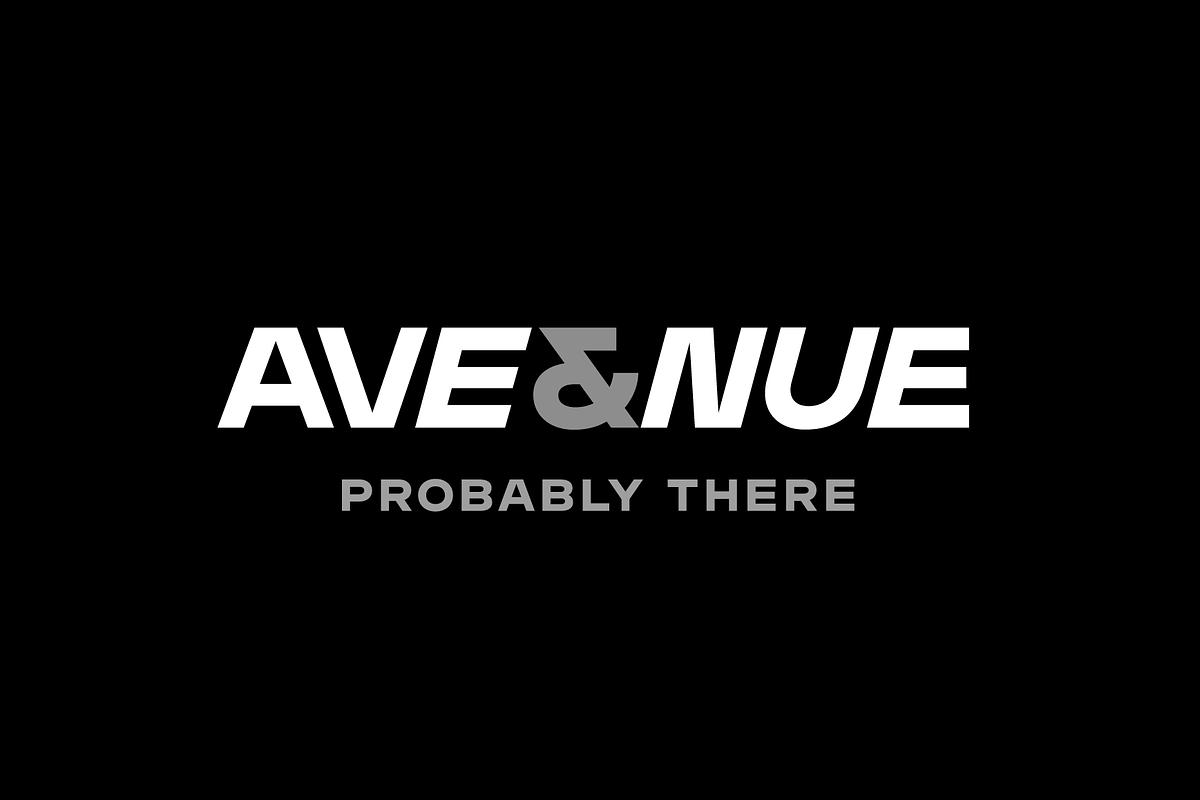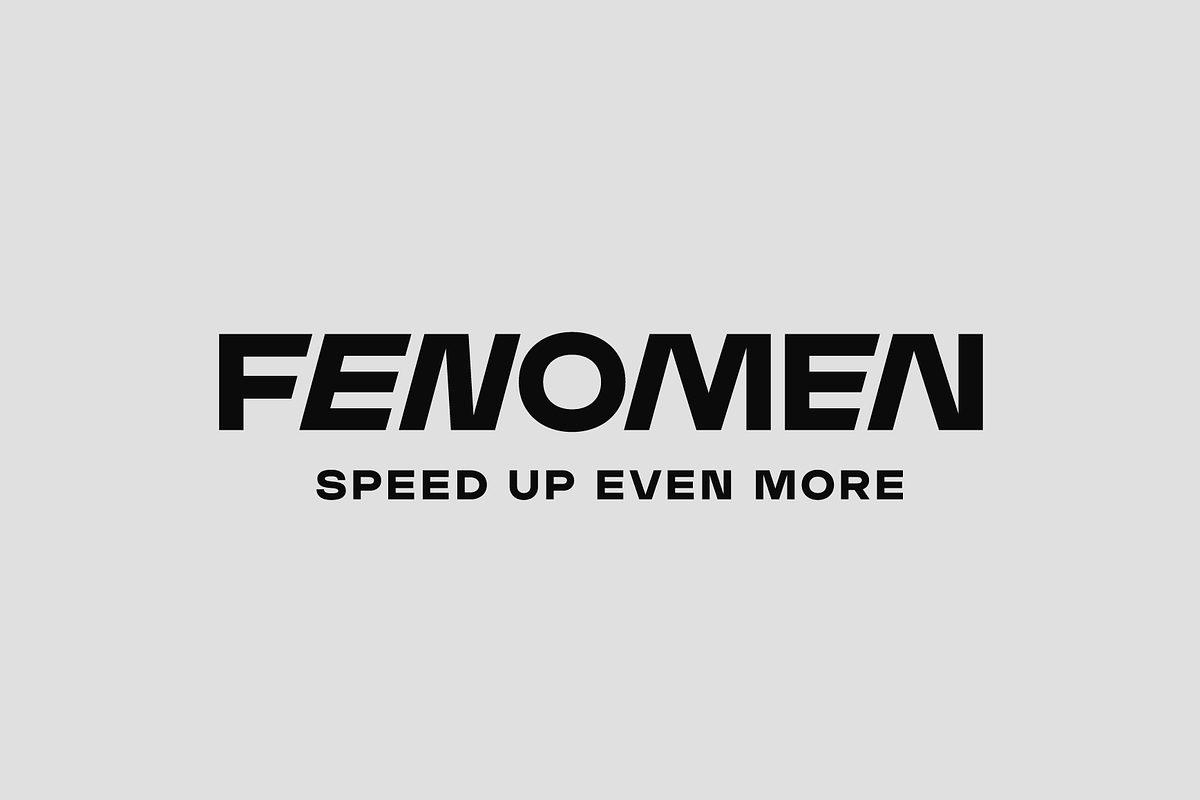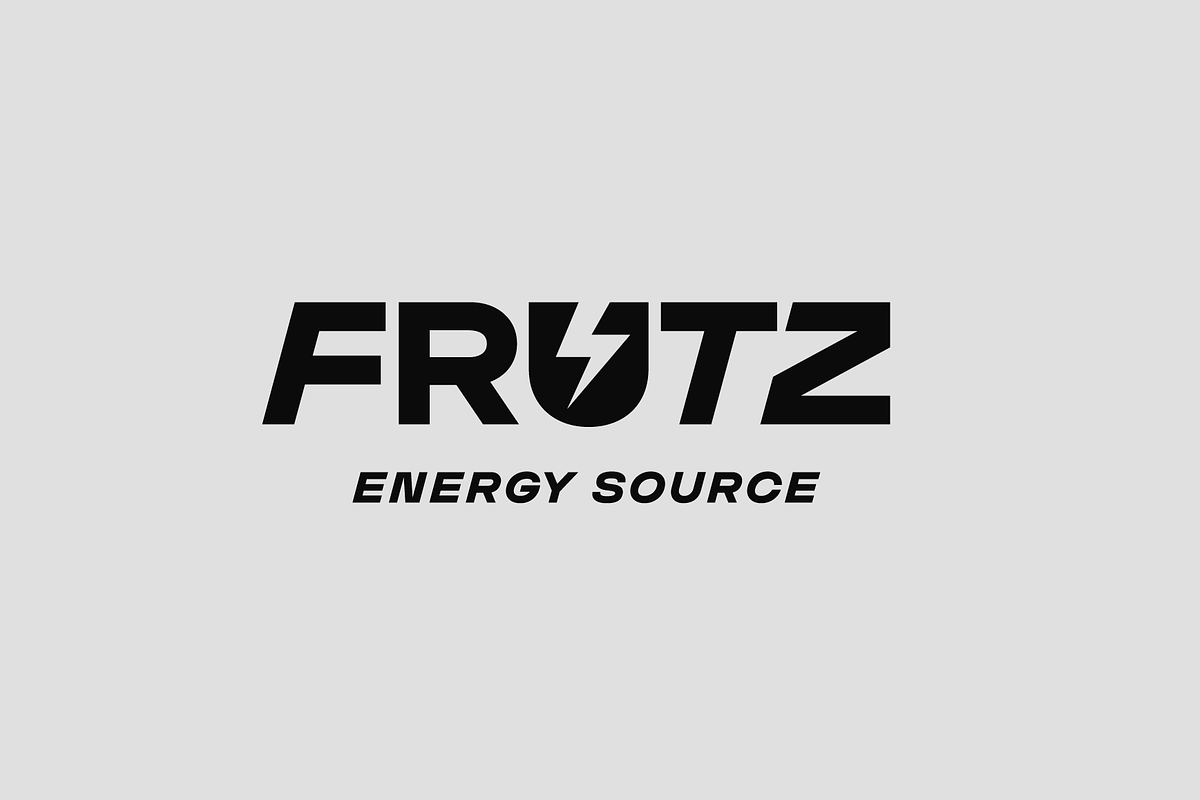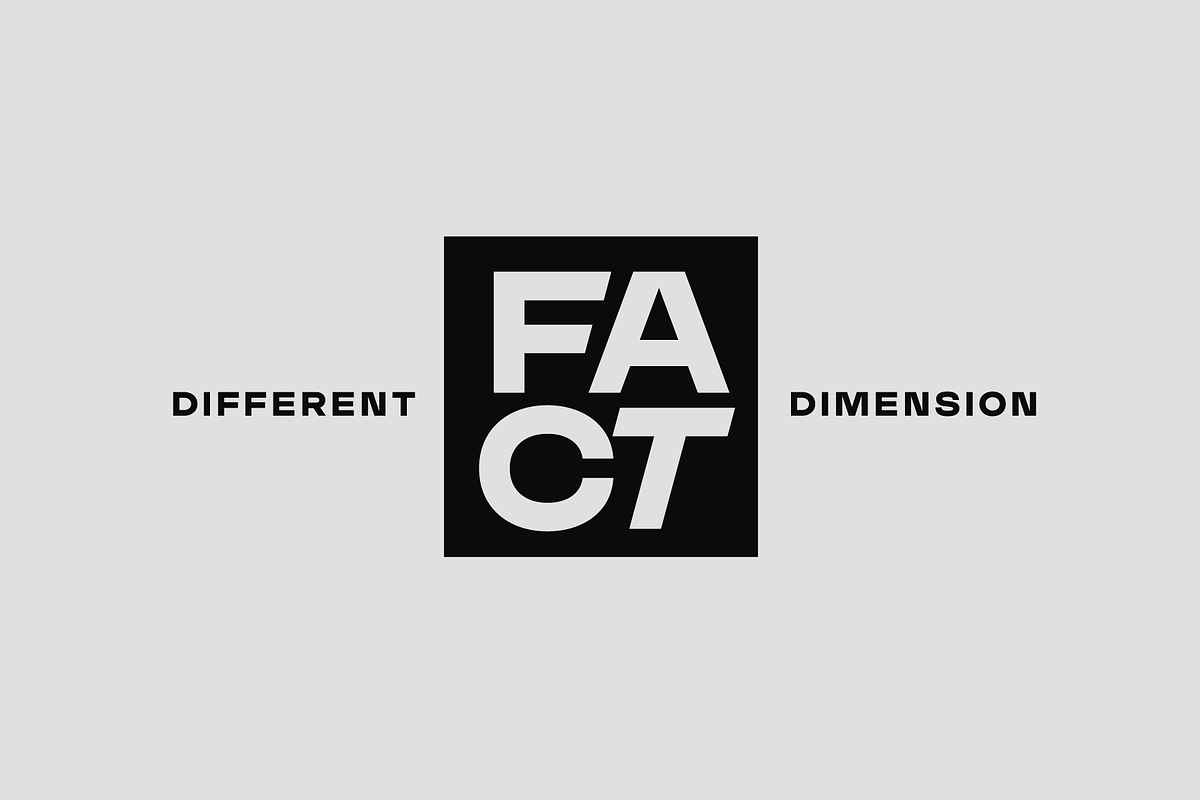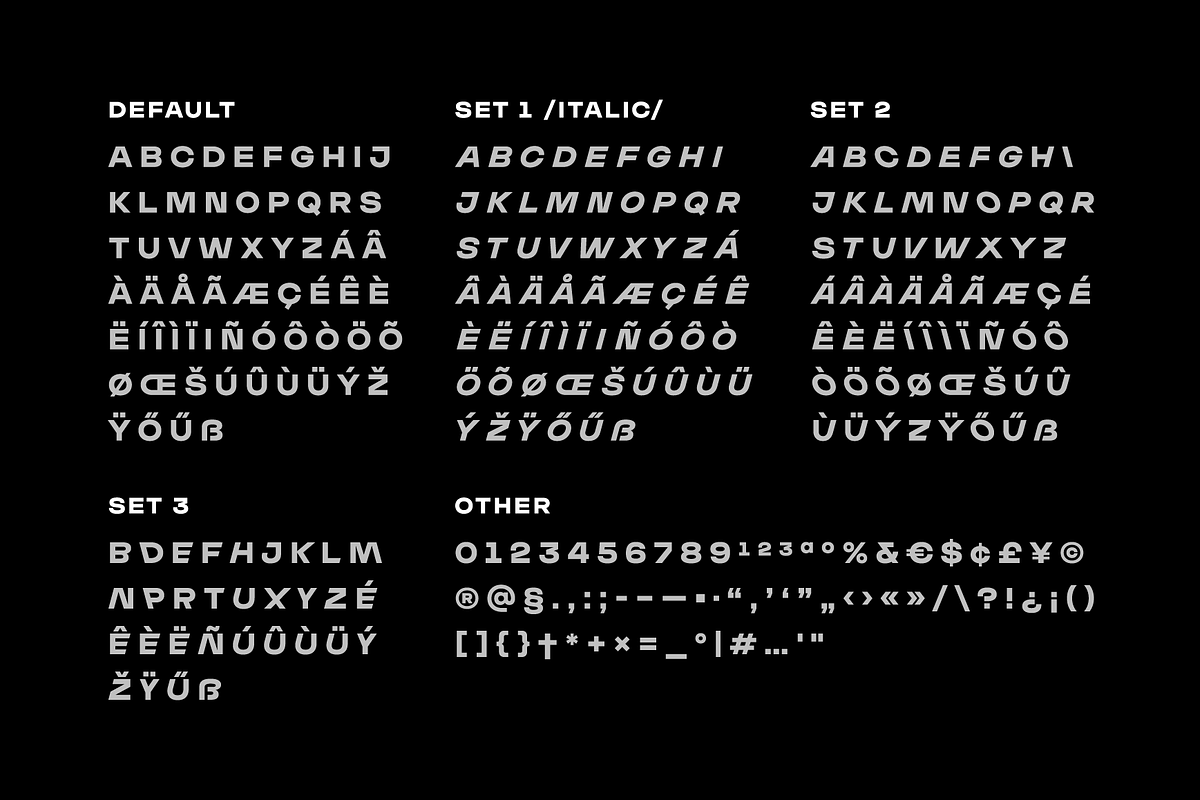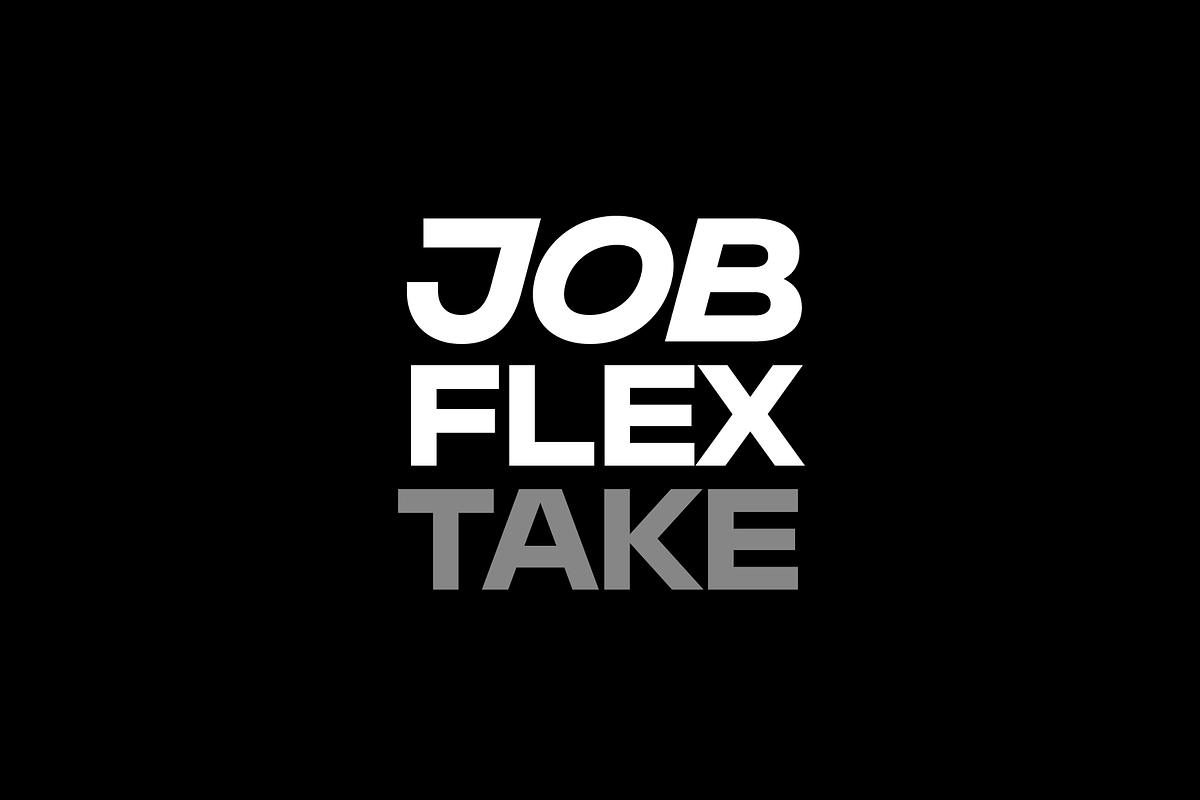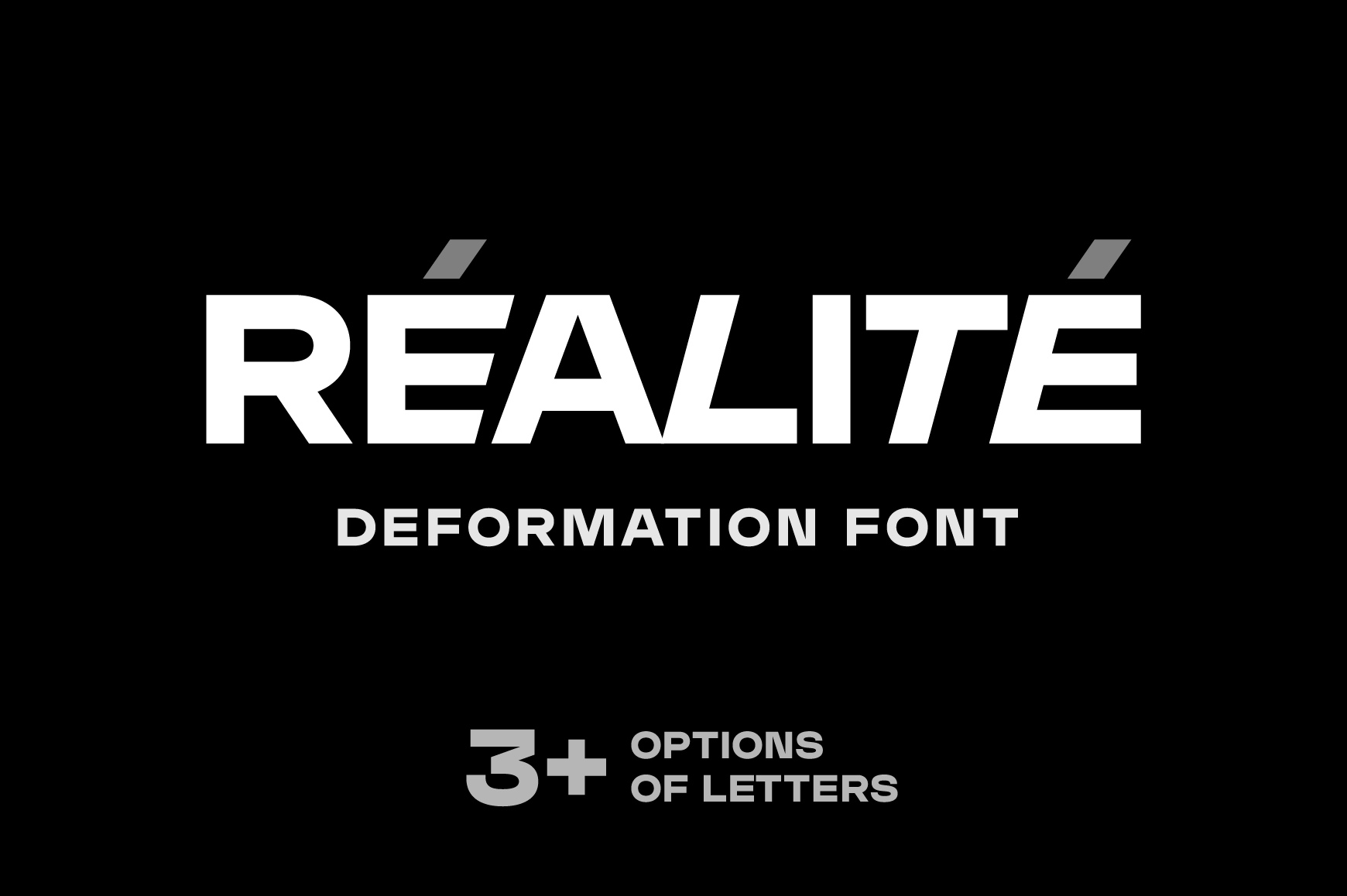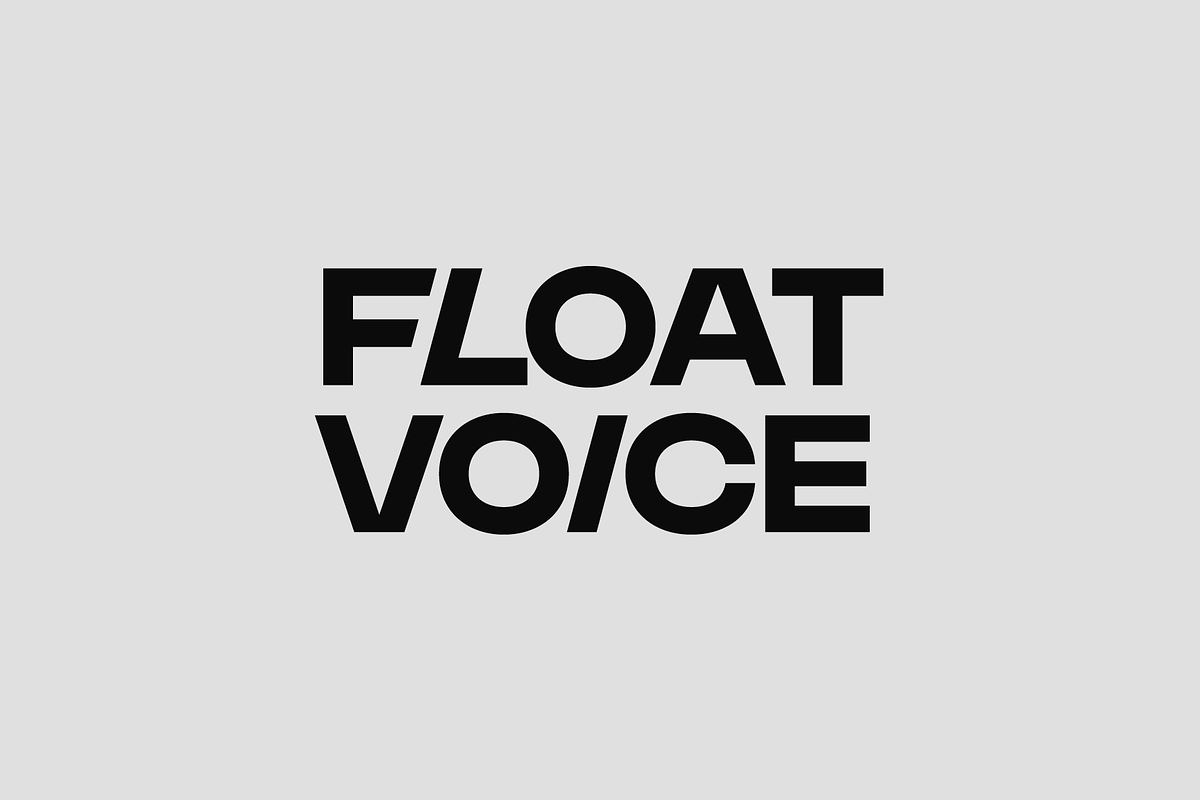
Realite Font
Realite font is suitable for creating minimalistic logos, wordmarks, titles, taglines. Each letter of the font has two or three alternates. You can mix default characters and alternate characters to get the best combination.
The font contains:
- 3 or 4 options of Latin letters
- 3 or 4 options of basic multilingual letters
- numbers
- extra characters
- punctuation